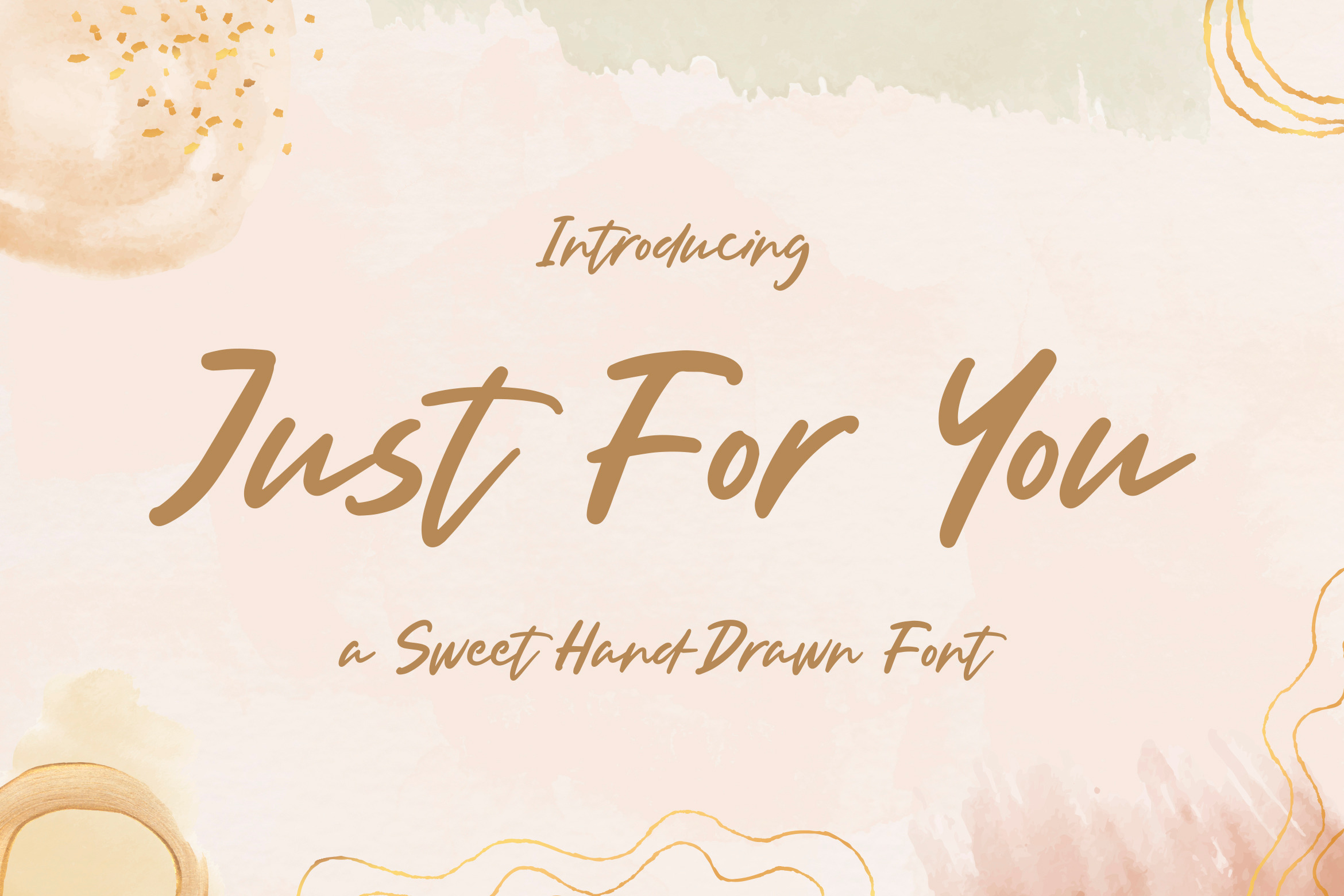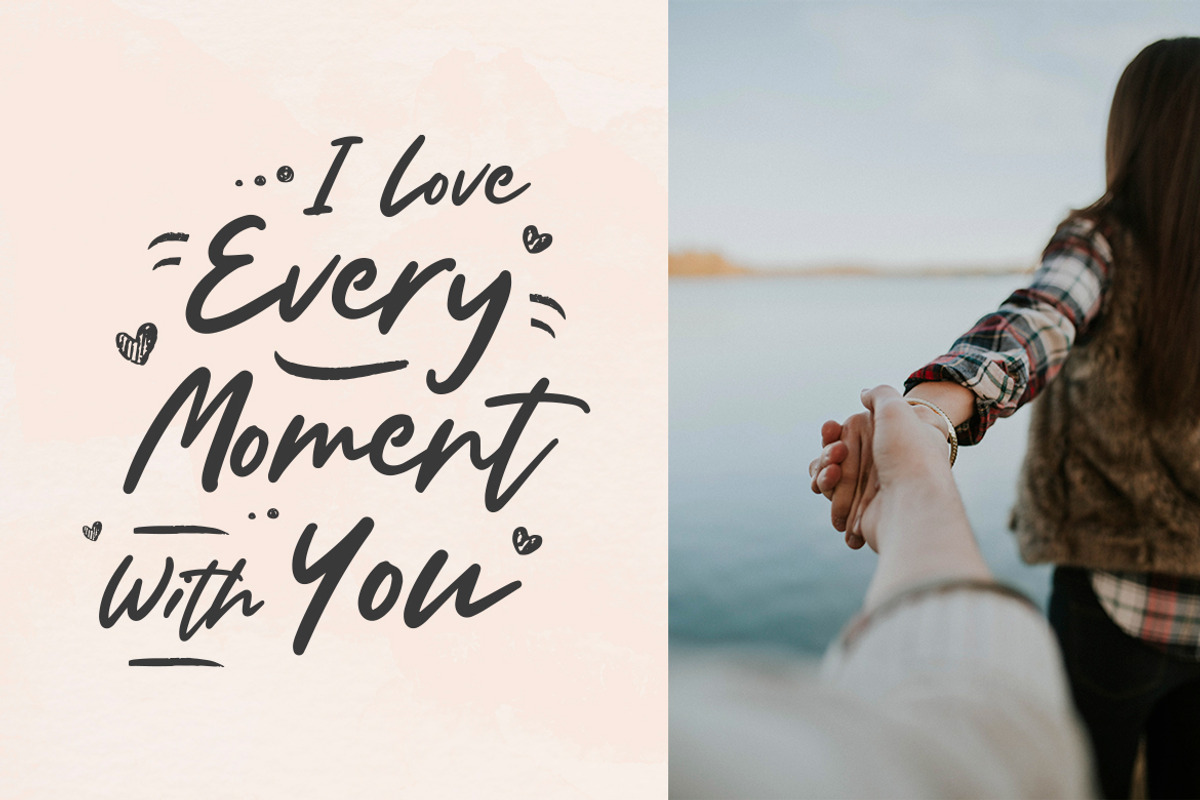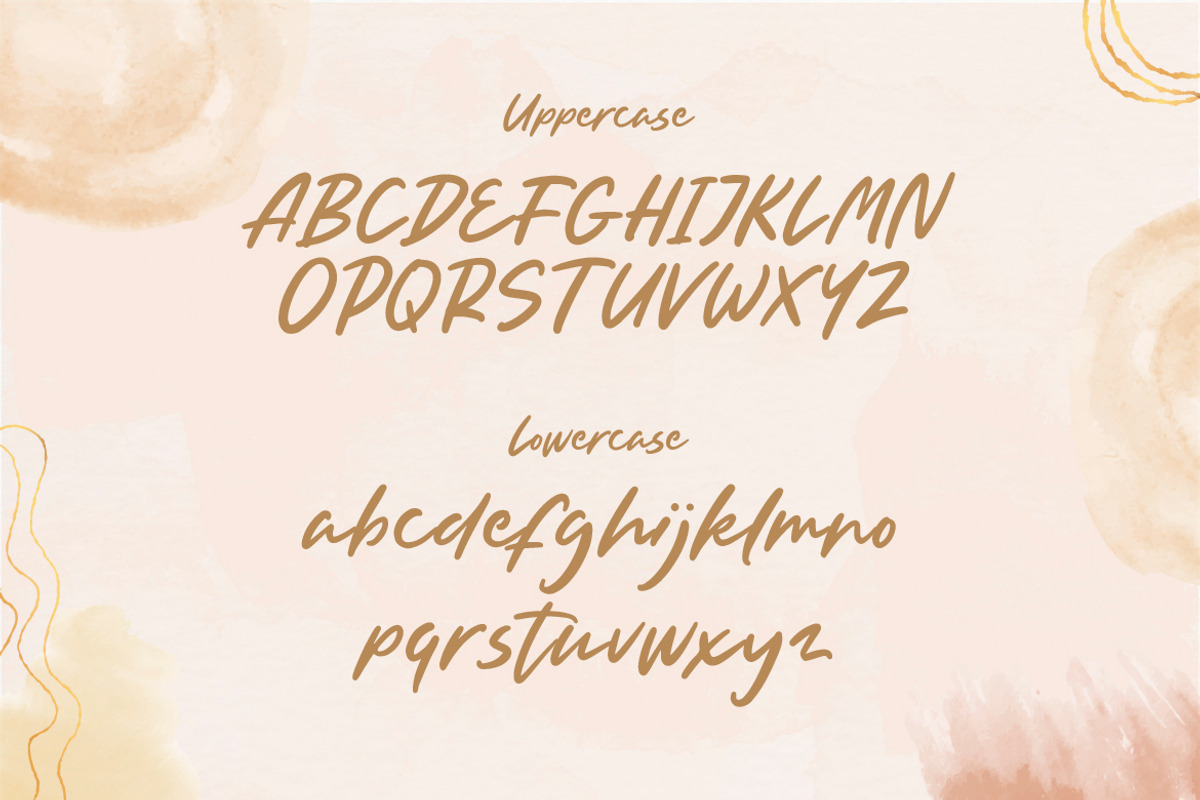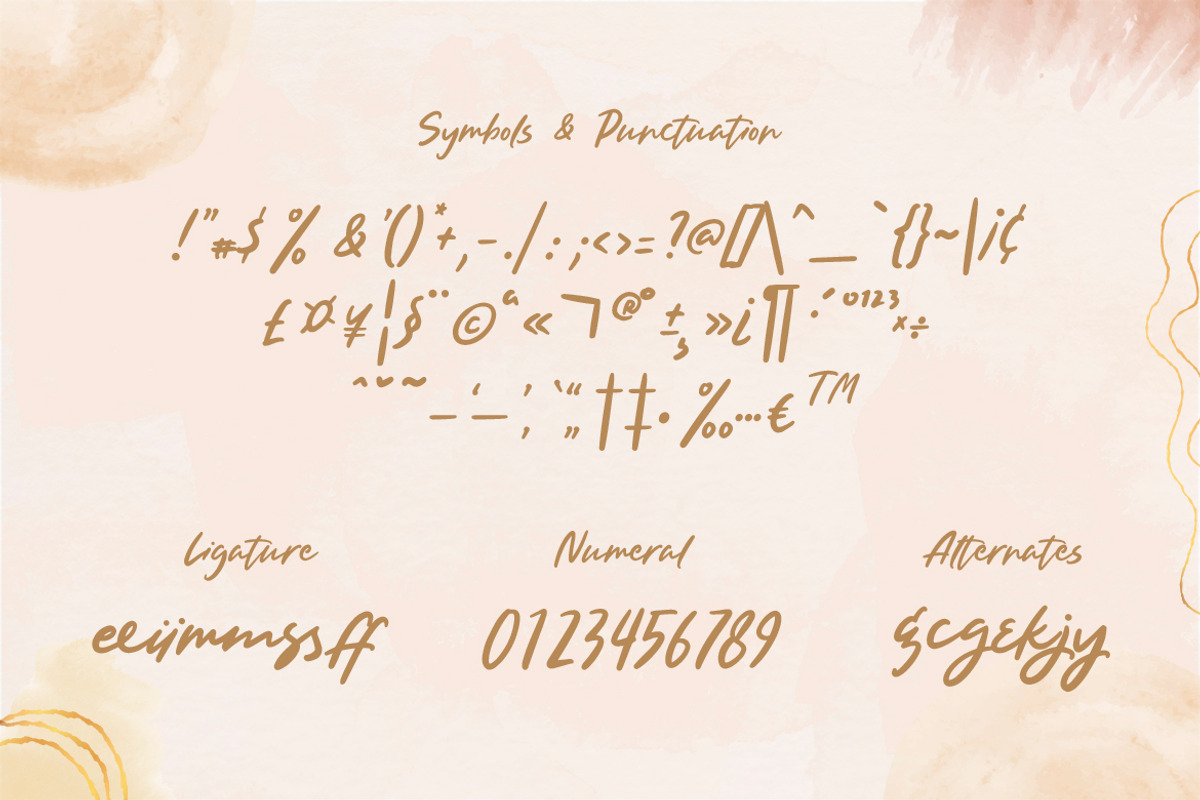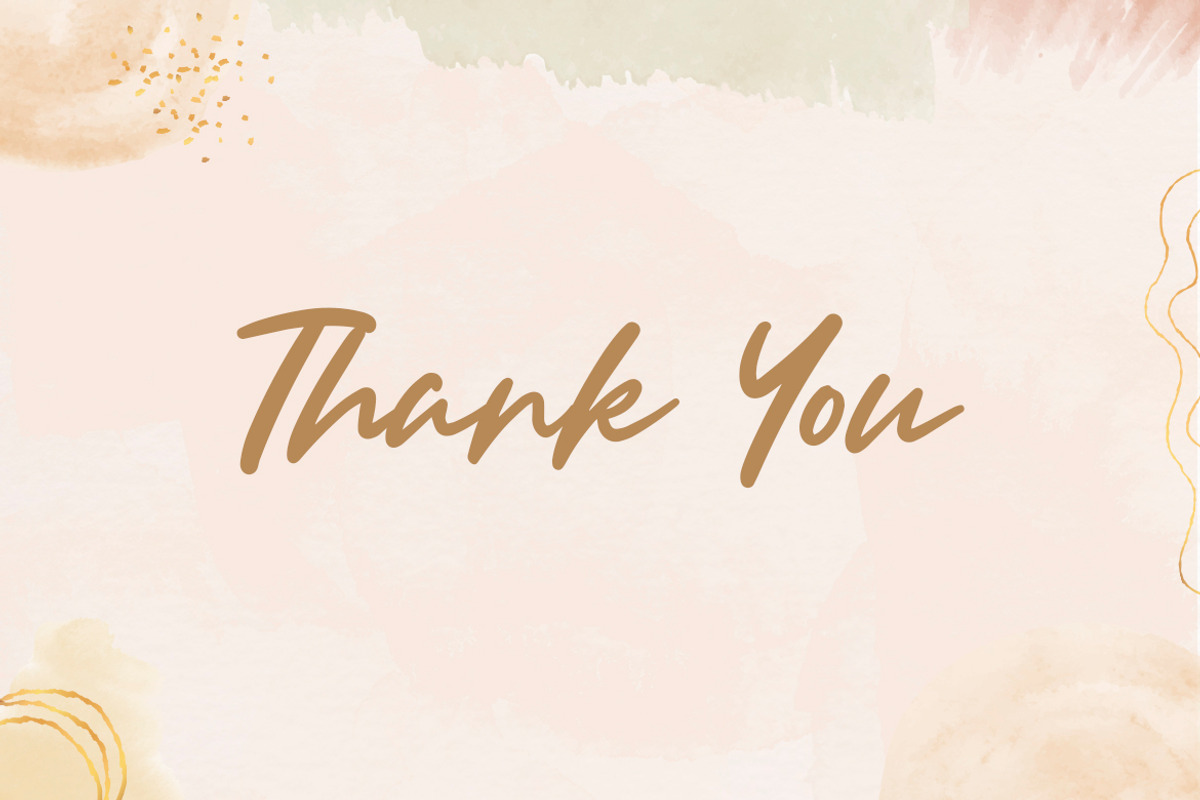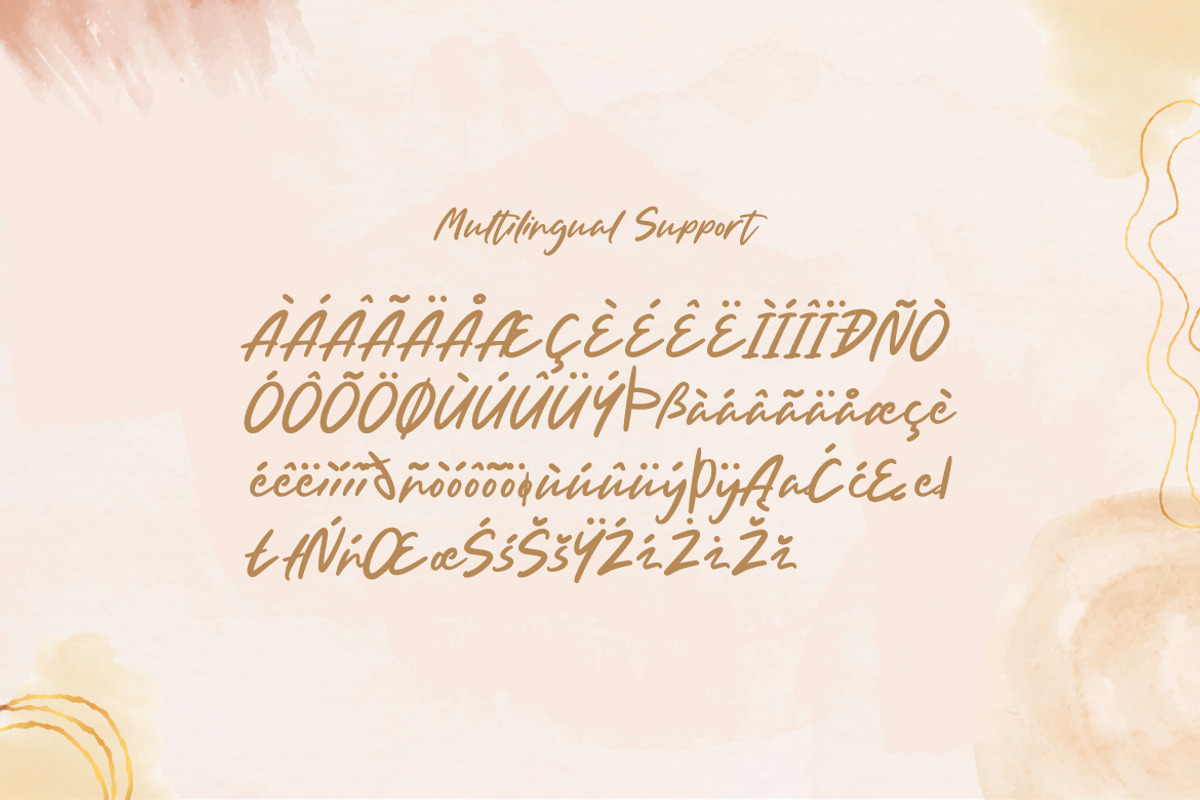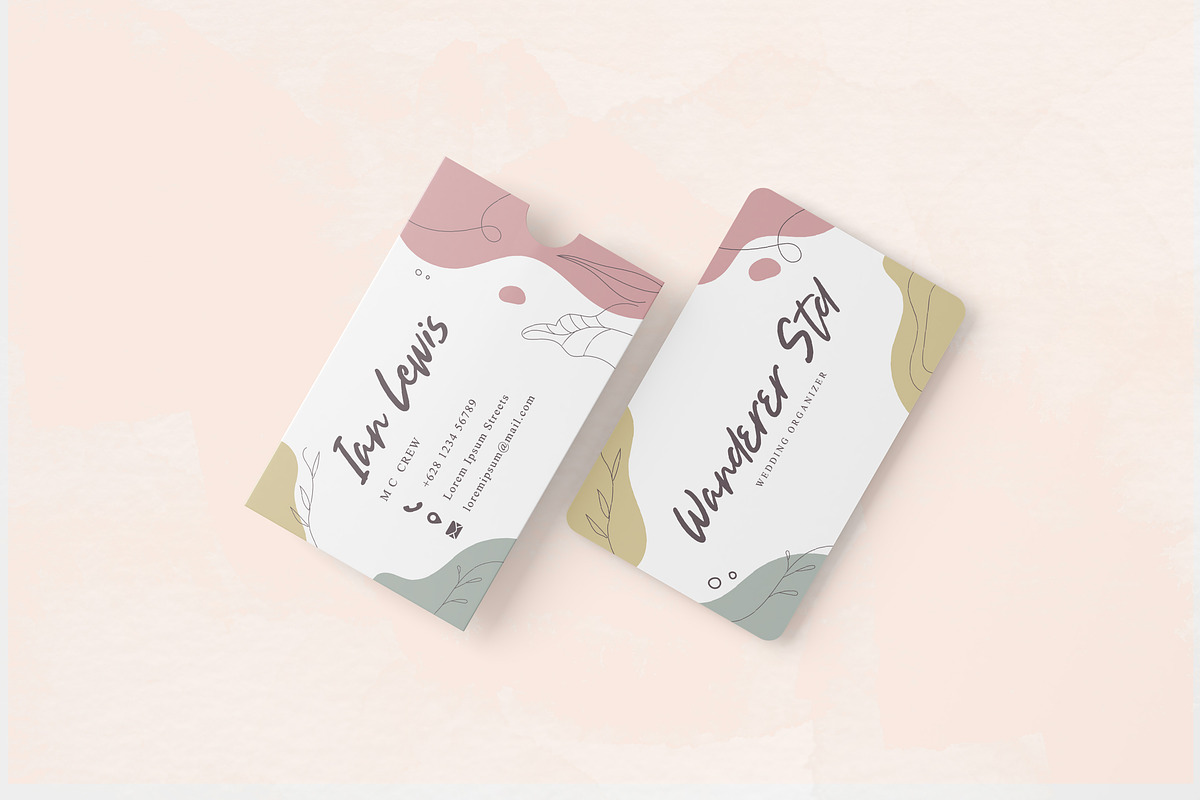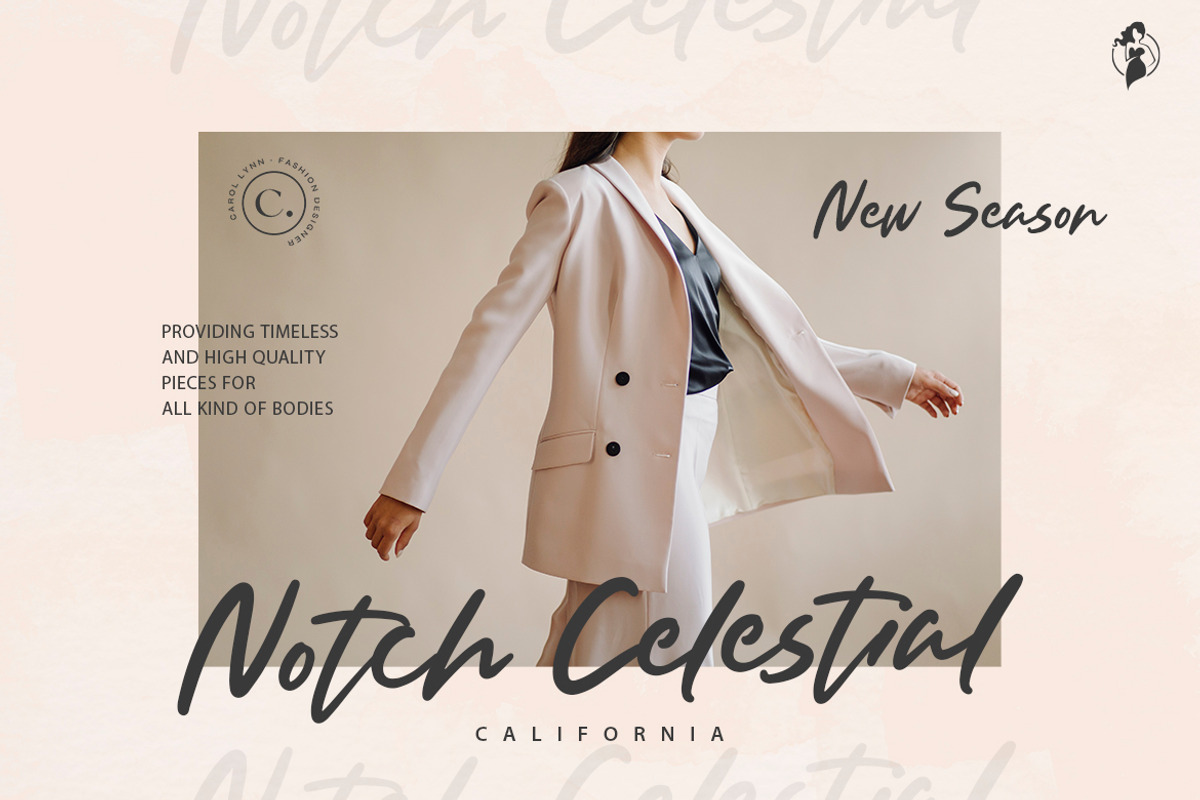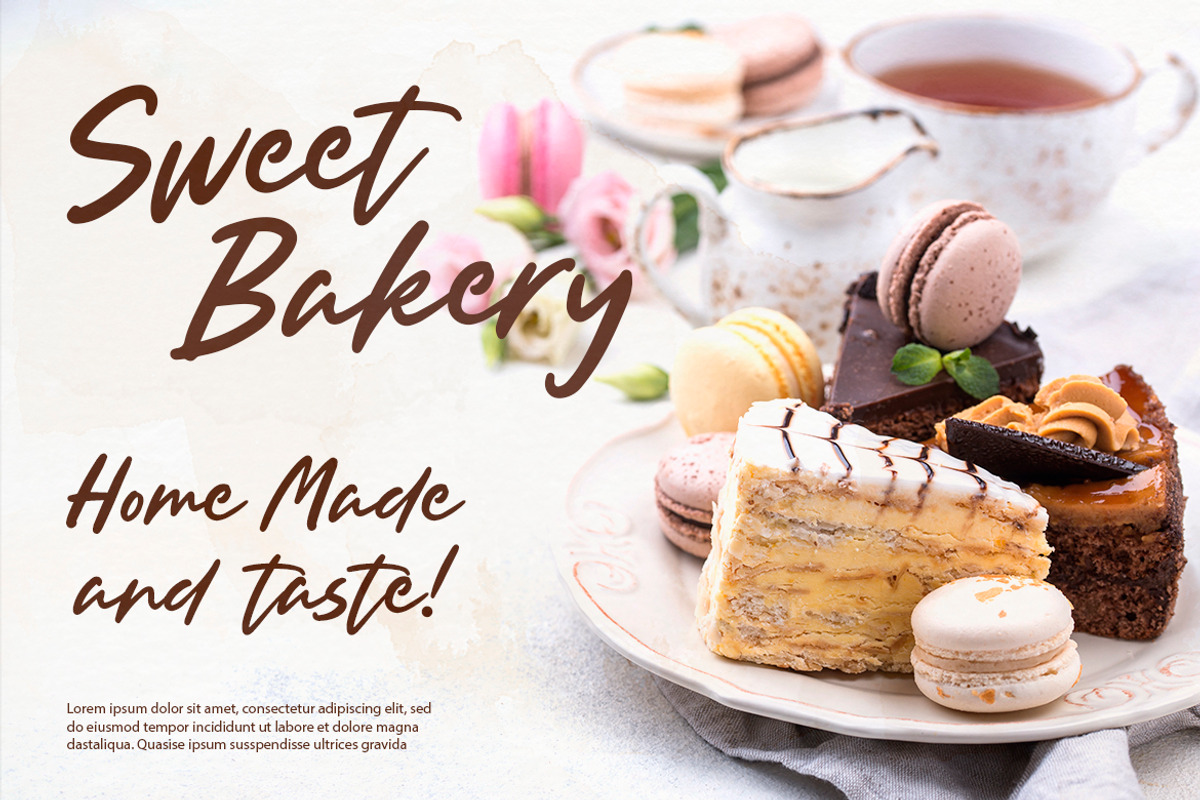
Just For You - Sweet Hand Drawn Font
Just For You is a sweet and dreamy handwritten font. Flowing easily and with a sweet and elegant touch, this font is ideal for each of your personal, bakery, apparel, romantic designs or ideas.